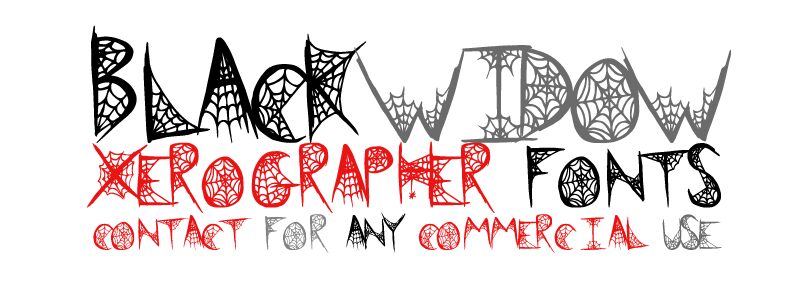
Black Widow by Xerographer Fonts is a free scary display font woven through with spiderweb ornament. Its tall, jagged letters shift between needle-thin strokes and dark, crooked shapes. The webbing is the real signature.
Halloween posters are its strongest setting because the lettering supplies both title and decoration. It also suits horror packaging, haunted-house signage, and seasonal merchandise. For spooky brands, the recurring webs become part of the product identity rather than a separate pattern.